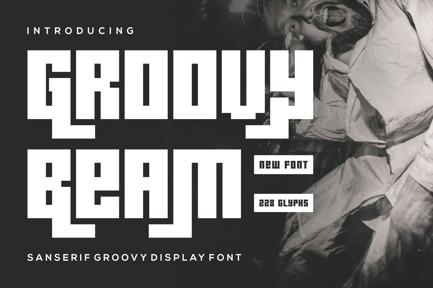
Groovy Beam Font
Groovy Beam Font – Modern Font is a bold and authentic display font. The font is suitable for any branding project like logo, esport, and many more. outstanding in a wide range of contexts.